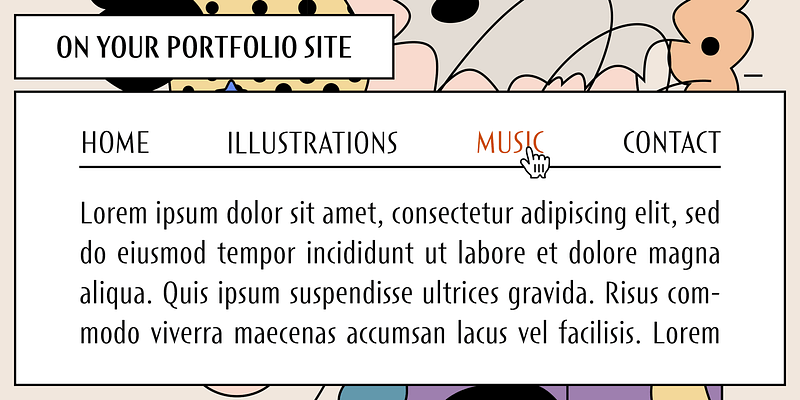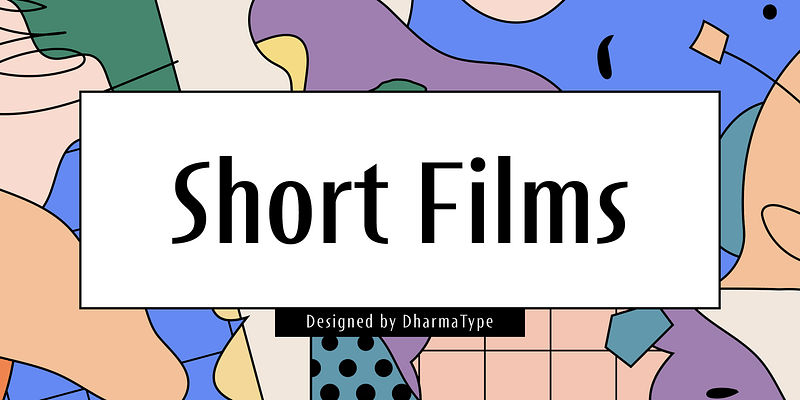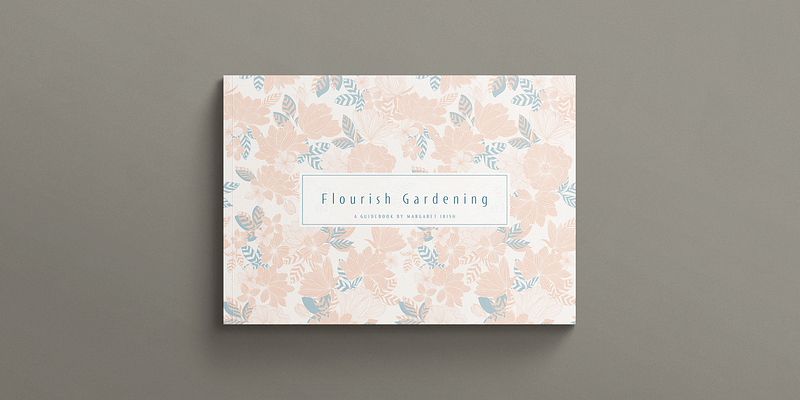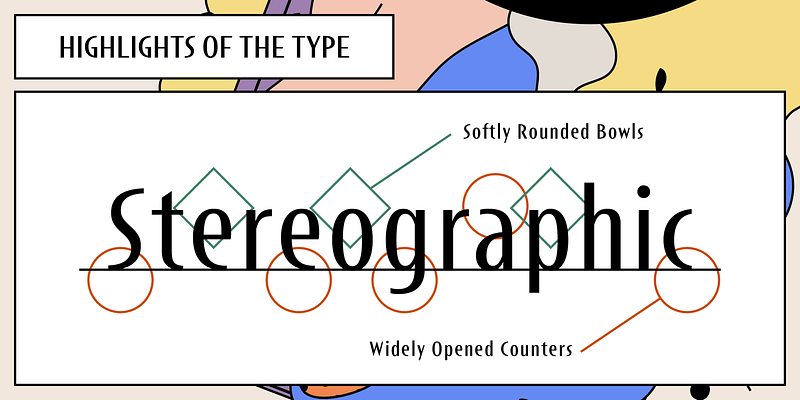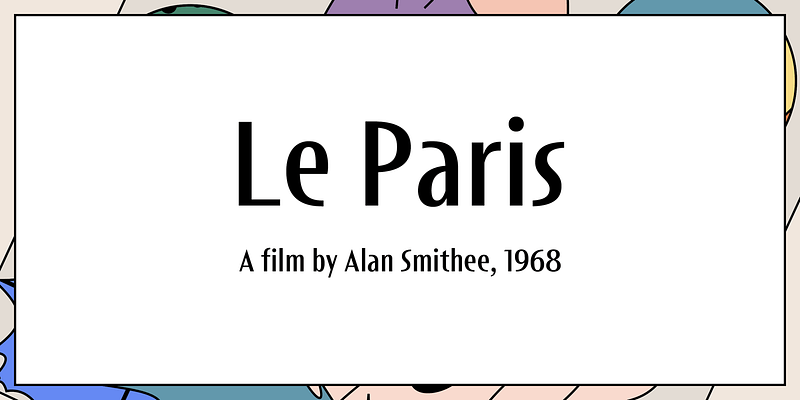
Short Films is an all-new-styled family, which kind of looks like Art Deco Style. Wide opened counters and softly rounded bowls create a new feeling – Retro but futuristic, geometric but humanistic.
Dharma Type started in 2005 as a project to offer exclusive fonts designed by Ryoichi Tsunekawa for designers all over the world. The design style is wide-ranging - from retro and classic to experimental and futuristic, from formal to informal. The direction of the project is to fill the small niche of design demand. So far, Dharma Type released about a hundred Latin typefaces including Bebas Neue (free open source font), and many of their fonts have been featured in various publications and used in multiple media such as movie titles (e.g. La La Land), brand logos, and posters.